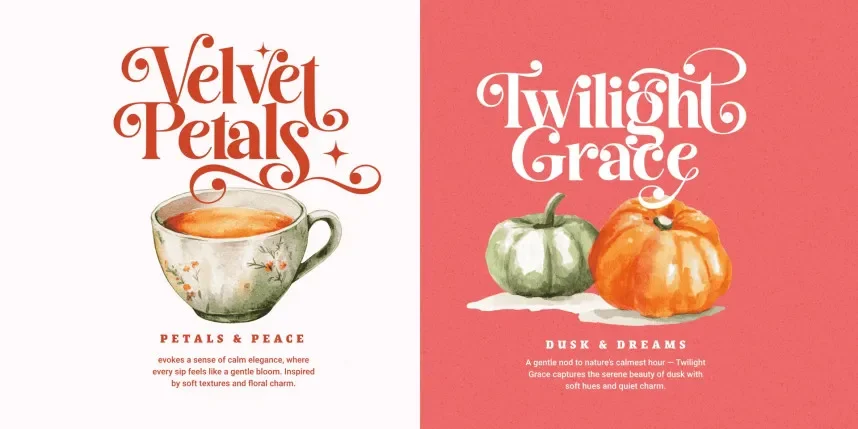
Best Swashed Font is a decorative serif typeface designed with flowing, elegant swashes that make it ideal for projects needing a touch of sophistication and flair. The sweeping curves and thin-to-thick stroke contrast create a dynamic visual appeal, perfect for branding and formal invitations.
This font works well for wedding invitations, high-end branding, and luxury product packaging. It pairs beautifully with simpler sans-serif fonts to maintain readability in longer texts. Available in TTF and OTF formats, Best Swashed Font includes a commercial-use license. Always verify the license details before using it commercially.